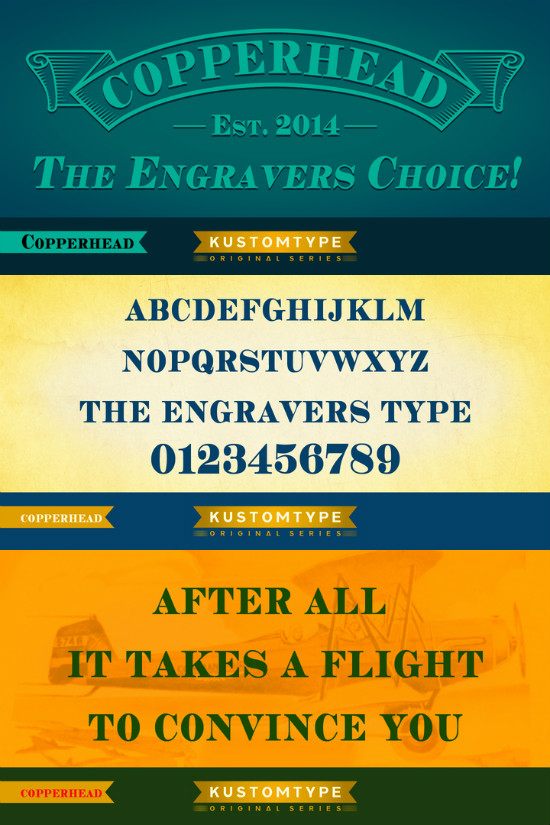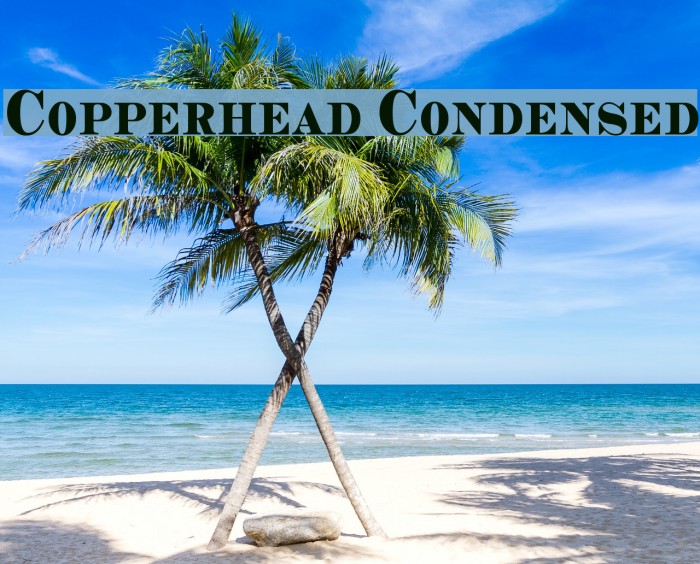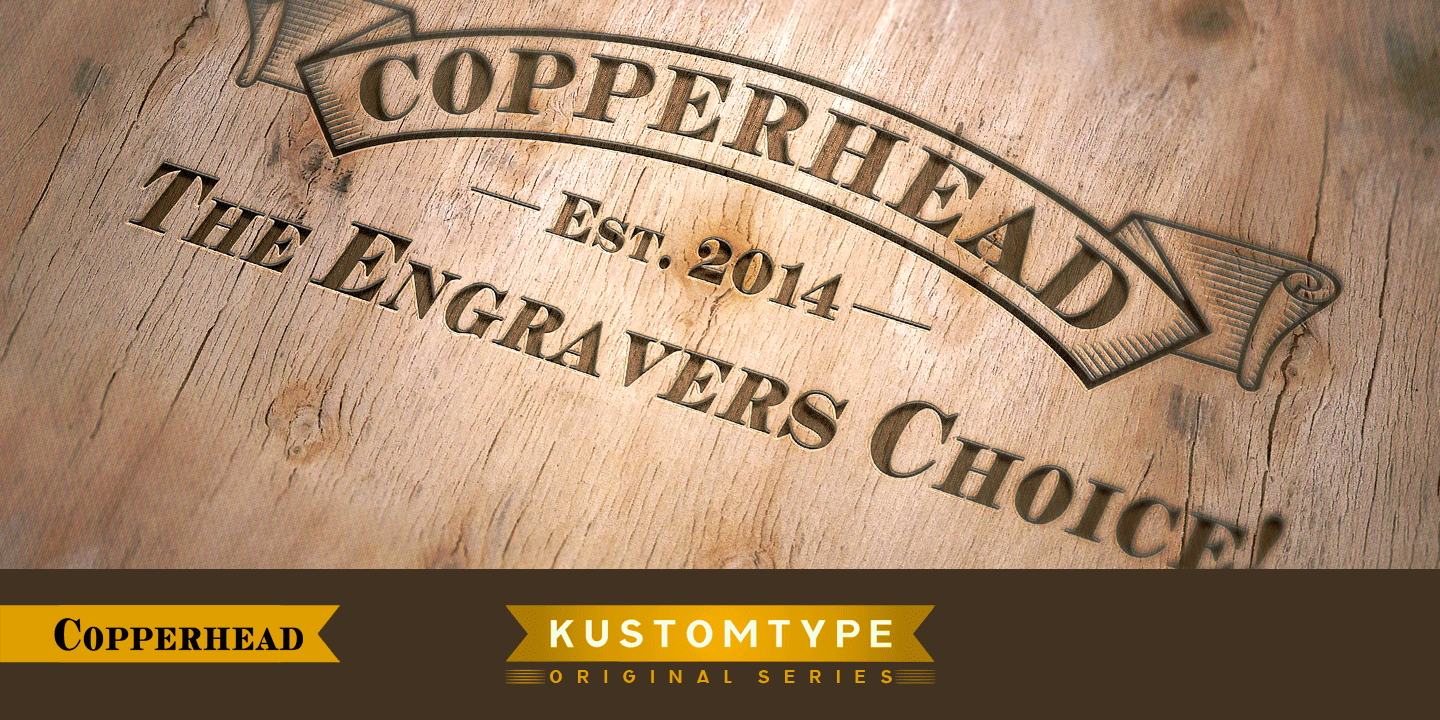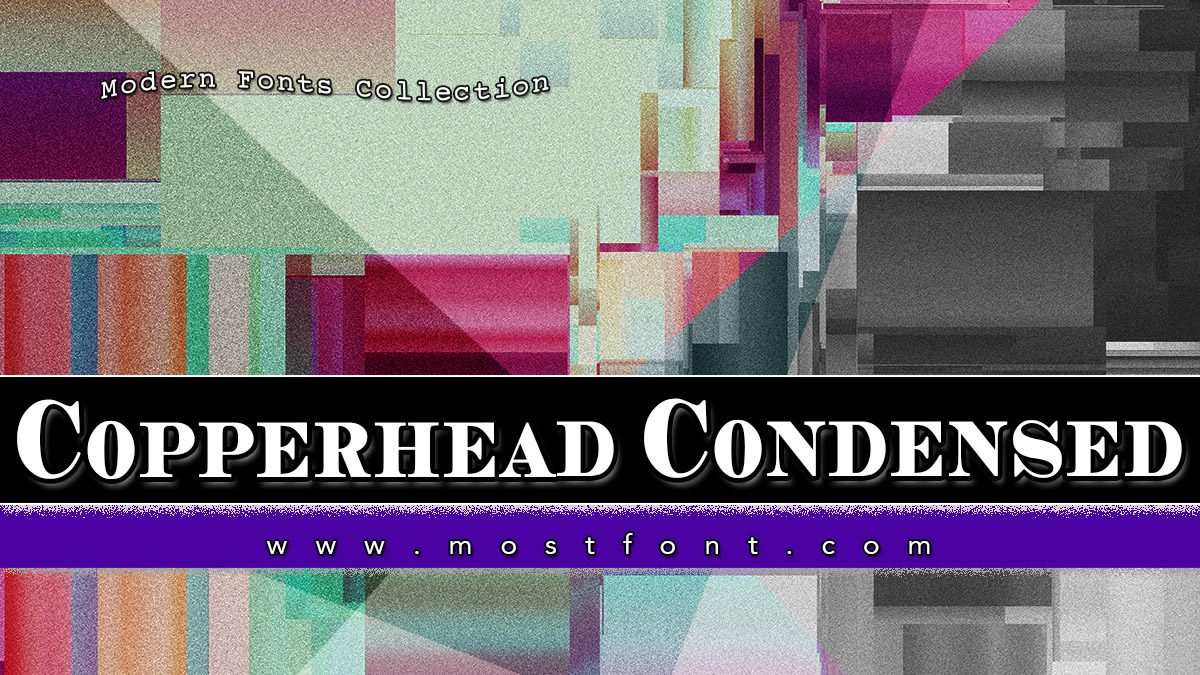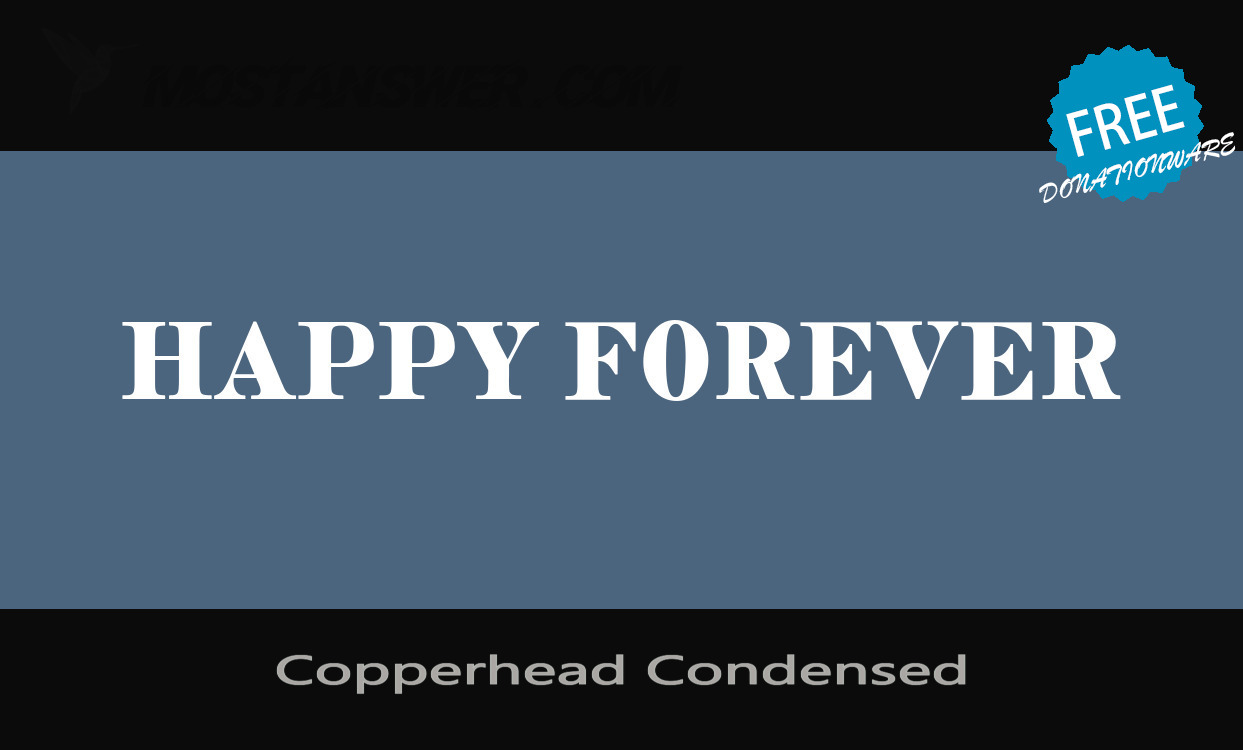
Copperhead Font . Copperhead is a fine and easy This font is specially designed for customers or companies fancying the goudy’s. Copperhead is an all caps font with thin rounded serifs. This font is specially designed for customers or companies fancying the goudy This font is specially designed for customers or companies fancying the goudy's. This font is specially designed for customers or companies fancying the goudy's copperplate font, though slightly different and restyled. Copperhead is an 'all caps font' with thin rounded serifs. Copperhead is an ‘all caps font’ with thin rounded serifs. Copperhead is an 'all caps font' with thin rounded serifs. This font is specially designed for customers or companies fancying the goudys copperplate font, though slightly different and. Copperhead is an 'all caps font' with thin rounded serifs.
Copperhead is an 'all caps font' with thin rounded serifs. Copperhead is a fine and easy Copperhead is an all caps font with thin rounded serifs. Copperhead is an 'all caps font' with thin rounded serifs. This font is specially designed for customers or companies fancying the goudy's copperplate font, though slightly different and restyled. This font is specially designed for customers or companies fancying the goudy's. This font is specially designed for customers or companies fancying the goudys copperplate font, though slightly different and. Copperhead is an 'all caps font' with thin rounded serifs. This font is specially designed for customers or companies fancying the goudy’s. This font is specially designed for customers or companies fancying the goudy
Copperhead Font Copperhead is an all caps font with thin rounded serifs. Copperhead is an ‘all caps font’ with thin rounded serifs. This font is specially designed for customers or companies fancying the goudy Copperhead is a fine and easy Copperhead is an all caps font with thin rounded serifs. This font is specially designed for customers or companies fancying the goudy's. This font is specially designed for customers or companies fancying the goudy’s. This font is specially designed for customers or companies fancying the goudys copperplate font, though slightly different and. Copperhead is an 'all caps font' with thin rounded serifs. This font is specially designed for customers or companies fancying the goudy's copperplate font, though slightly different and restyled. Copperhead is an 'all caps font' with thin rounded serifs.
Copperhead Condensed free font Copperhead Font Copperhead is an ‘all caps font’ with thin rounded serifs. Copperhead is a fine and easy This font is specially designed for customers or companies fancying the goudy's copperplate font, though slightly different and restyled. Copperhead is an 'all caps font' with thin rounded serifs. This font is specially designed. Copperhead Font.
Download free Copperhead Condensed Regular font Copperhead Condensed Copperhead Font This font is specially designed for customers or companies fancying the goudys copperplate font, though slightly different and. Copperhead is an all caps font with thin rounded serifs. Copperhead is an 'all caps font' with thin rounded serifs. This font is specially designed for customers or companies fancying the goudy’s.. Copperhead Font.
Copperhead Condensed free font Copperhead Font This font is specially designed for customers or companies fancying the goudy's. Copperhead is an 'all caps font' with thin rounded serifs. This font is specially designed for customers or companies fancying the goudys copperplate font, though slightly different and. Copperhead is an all caps font with thin rounded serifs.. Copperhead Font.
Copperhead Condensed Font Copperhead is a fine and easy Copperhead is an 'all caps font' with thin rounded serifs. This font is specially designed for customers or companies fancying the goudy's. This font is specially designed for customers or companies fancying the goudy This font is specially designed for customers or companies fancying the goudy’s. Copperhead is an 'all caps font' with thin. Copperhead Font.
Copperhead Condensed Font Download Free for Desktop & font Copperhead Font Copperhead is a fine and easy Copperhead is an ‘all caps font’ with thin rounded serifs. Copperhead is an all caps font with thin rounded serifs. Copperhead is an 'all caps font' with thin rounded serifs. This font is specially designed for customers or companies fancying the goudy’s. This font is specially designed for customers or companies fancying the goudy's. Copperhead Font.
Fonts similar to Copperhead Font Copperhead is an ‘all caps font’ with thin rounded serifs. This font is specially designed for customers or companies fancying the goudy's copperplate font, though slightly different and restyled. Copperhead is an 'all caps font' with thin rounded serifs. This font is specially designed for customers or companies fancying the goudy This font is specially designed for customers or companies. Copperhead Font.
Copperhead Font Kustomtype Copperhead Font Copperhead is an 'all caps font' with thin rounded serifs. This font is specially designed for customers or companies fancying the goudy’s. This font is specially designed for customers or companies fancying the goudys copperplate font, though slightly different and. Copperhead is an ‘all caps font’ with thin rounded serifs. This font is specially designed for customers or companies fancying. Copperhead Font.
Copperhead Condensed Font download free Copperhead Font This font is specially designed for customers or companies fancying the goudys copperplate font, though slightly different and. Copperhead is a fine and easy This font is specially designed for customers or companies fancying the goudy This font is specially designed for customers or companies fancying the goudy’s. Copperhead is an 'all caps font' with thin rounded serifs. This font. Copperhead Font.
Copperhead Font Kustomtype Copperhead Font This font is specially designed for customers or companies fancying the goudys copperplate font, though slightly different and. Copperhead is a fine and easy Copperhead is an 'all caps font' with thin rounded serifs. This font is specially designed for. Copperhead Font.